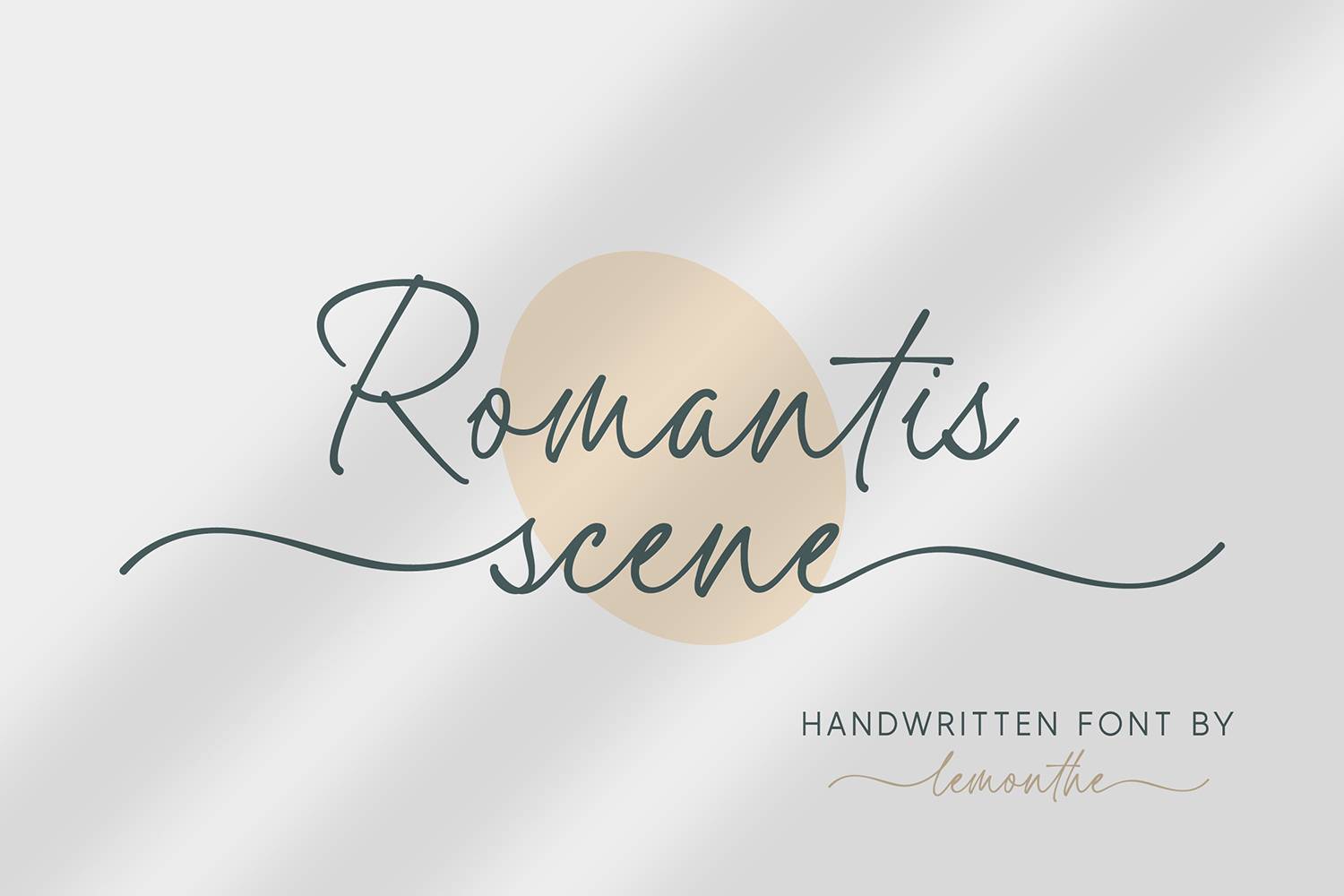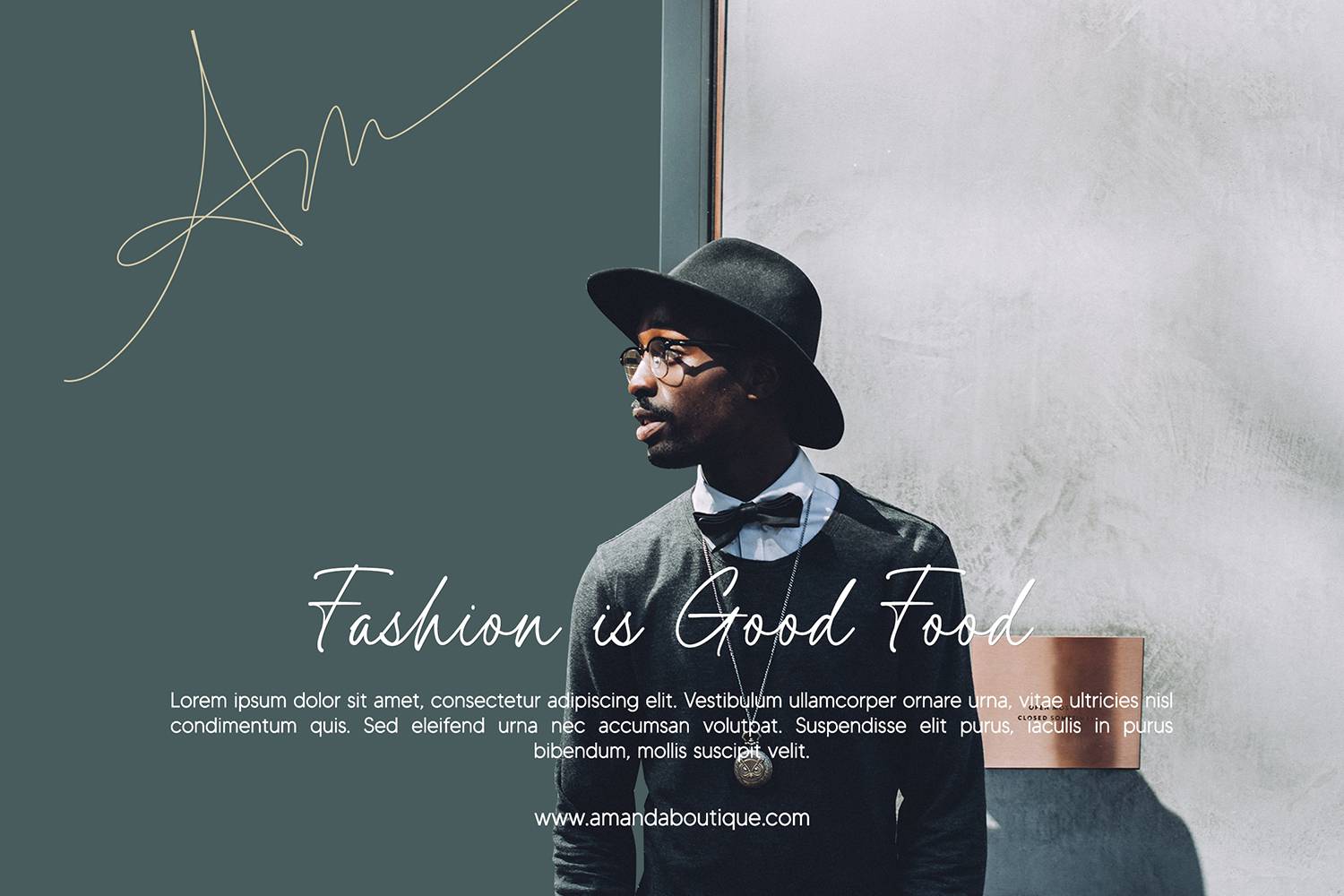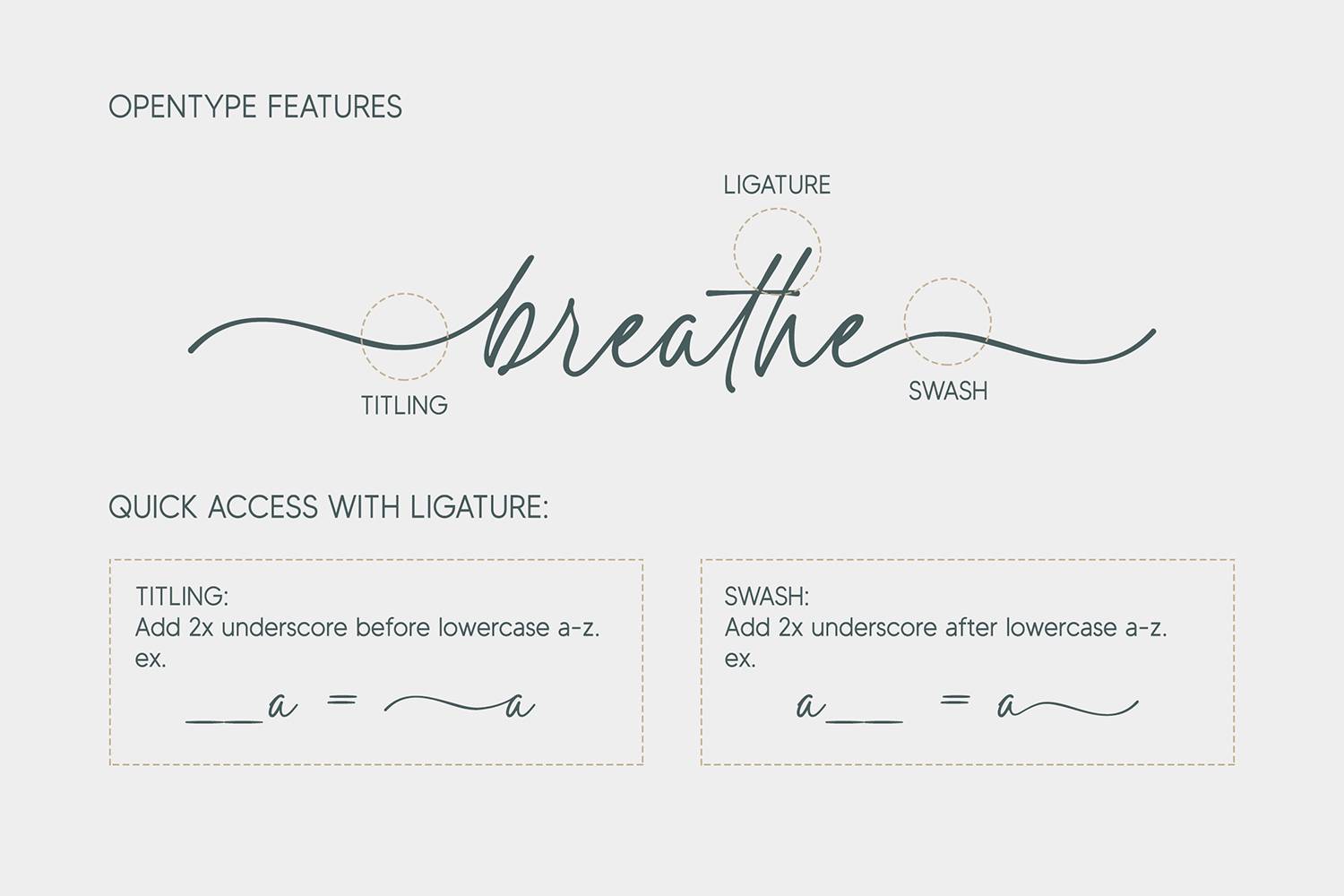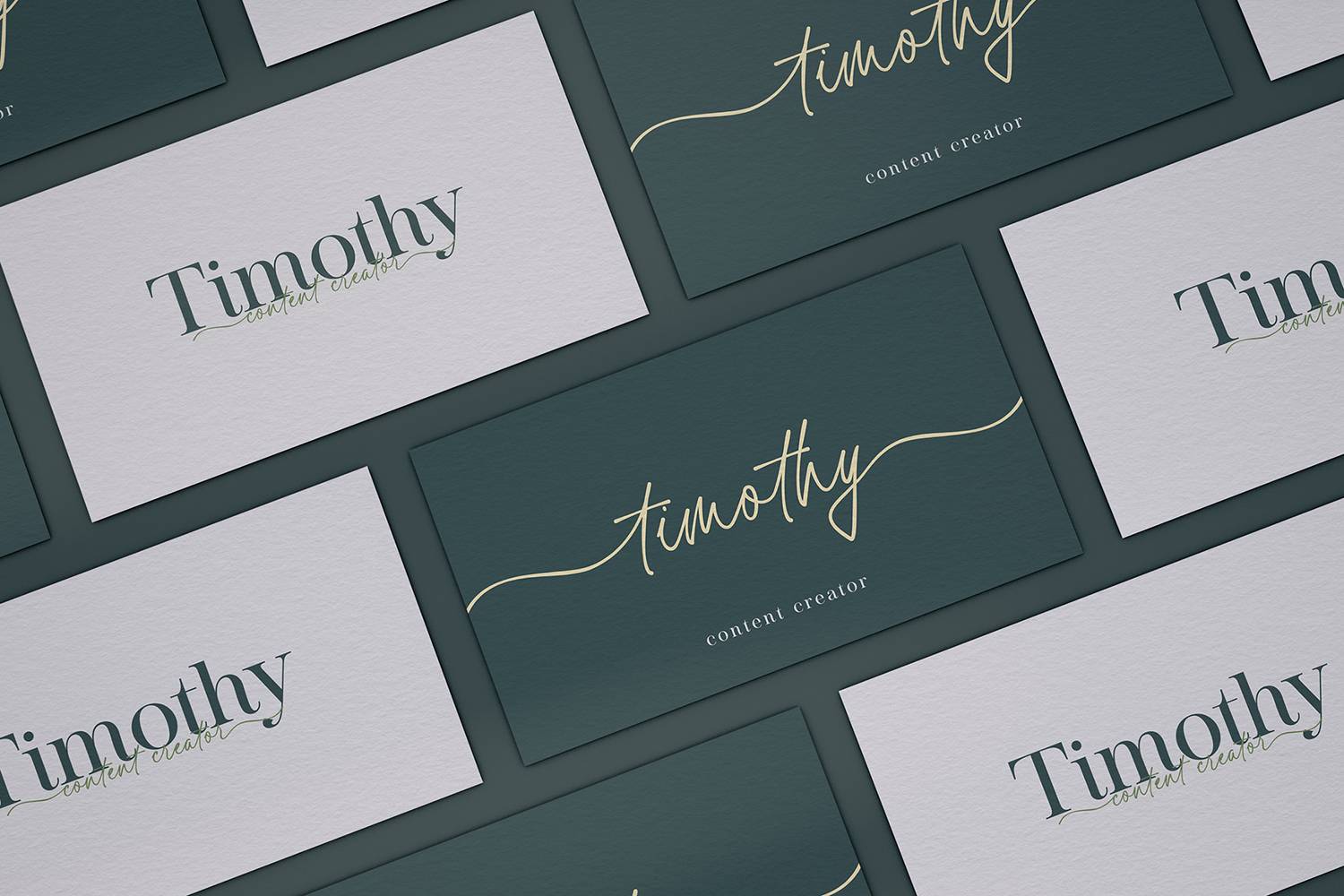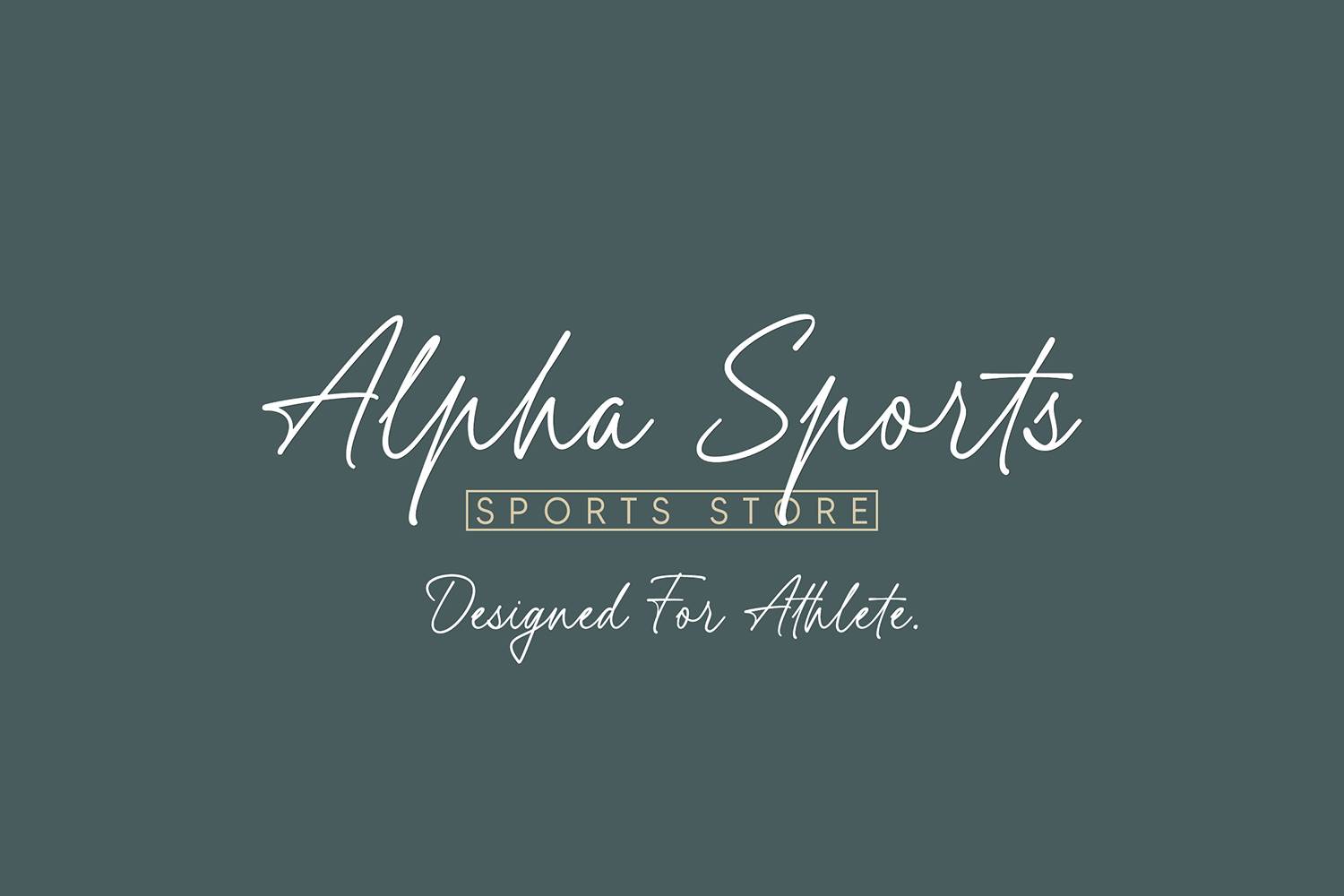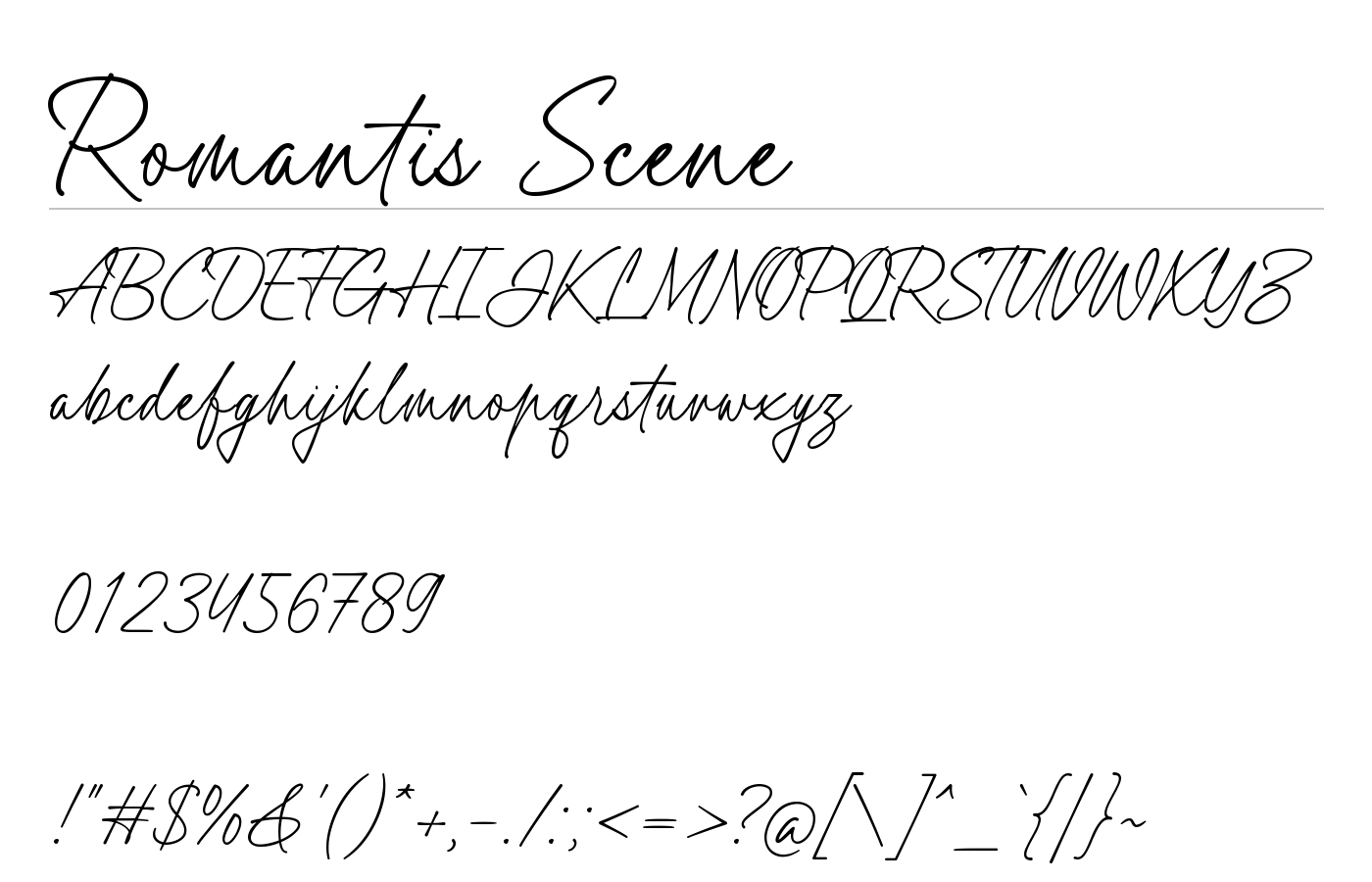
Romantis Scene is a delicate, elegant script font characterized by its slender, flowing strokes and a natural, handwritten feel. Its fine weight and slightly condensed letterforms give it a graceful and airy appearance, making it ideal for romantic, feminine branding, invitations, and stylish editorial projects where a touch of personal charm and sophistication is desired. This font shines in uses that benefit from an intimate and refined look, such as wedding materials, luxury packaging, and elegant headlines.
Romantis Scene Font
About Romantis Scene Font
| Font family | Romantis Scene Font |
| Designer | Dwi Ahidian |